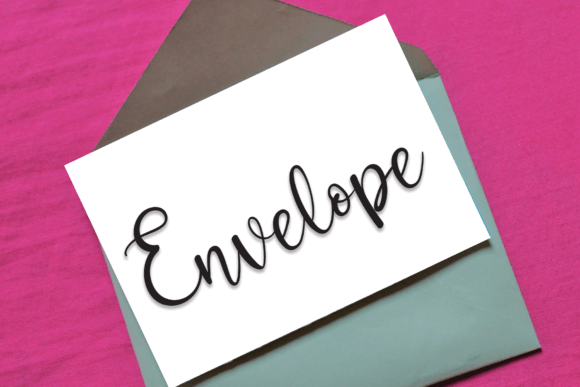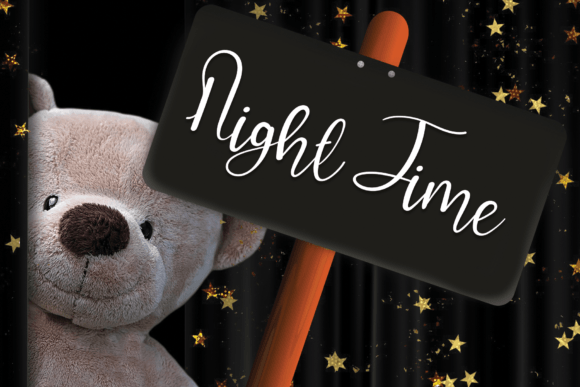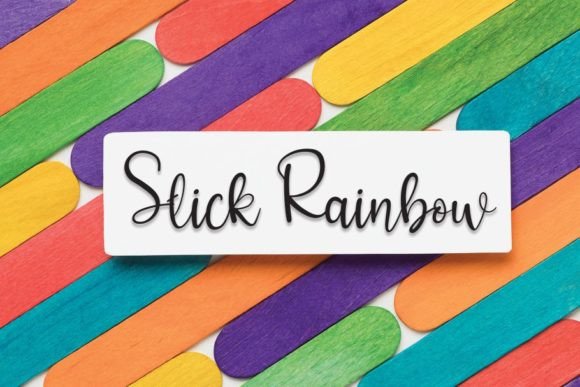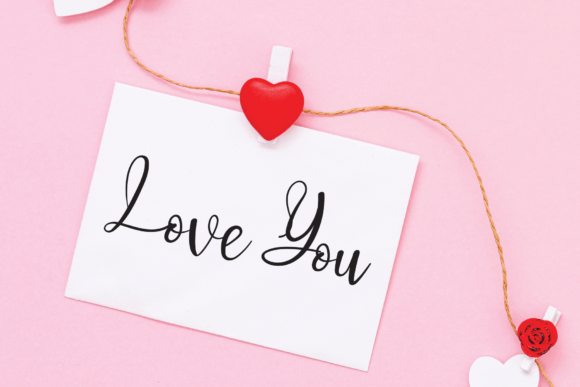
Introduction to Queen Font
This is a fun and friendly handwritten font.
Whether youโre using it for crafts, digital design, presentations, or creating greeting cards, this font has the potential to become your favorite font, whatever the occasion .
Key Features of Queen Font
Why Choose Queen Font?
Queen Font offers exceptional quality and versatility, making it a valuable addition to your design toolkit. Whether you’re creating for personal projects or commercial use, Queen Font delivers professional results.